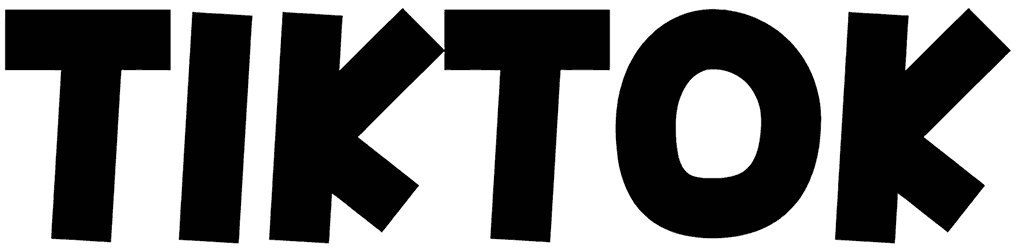
Tiktok Font
If you want to convey a sense of youth, freshness, clutter, and vivacity to the audience and get their attention, a comic font like Tiktok can meet your expectations. This font can greatly increase the efficiency of banners, menus, book covers, and social media posts. It should not be overlooked that this font does not support lowercase letters, numbers, and punctuation.